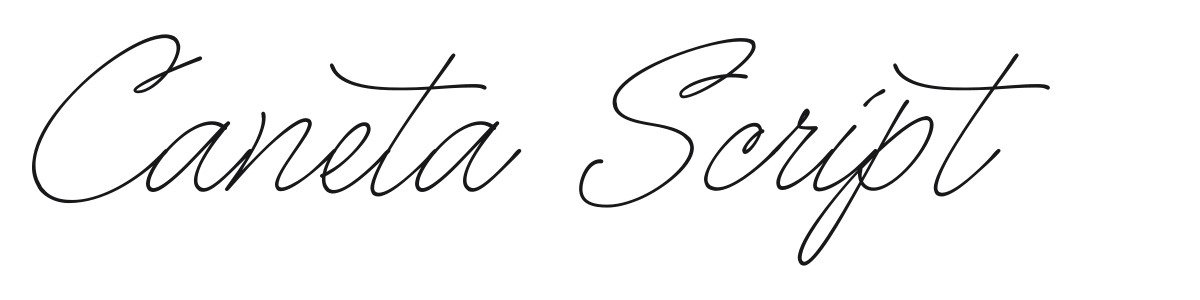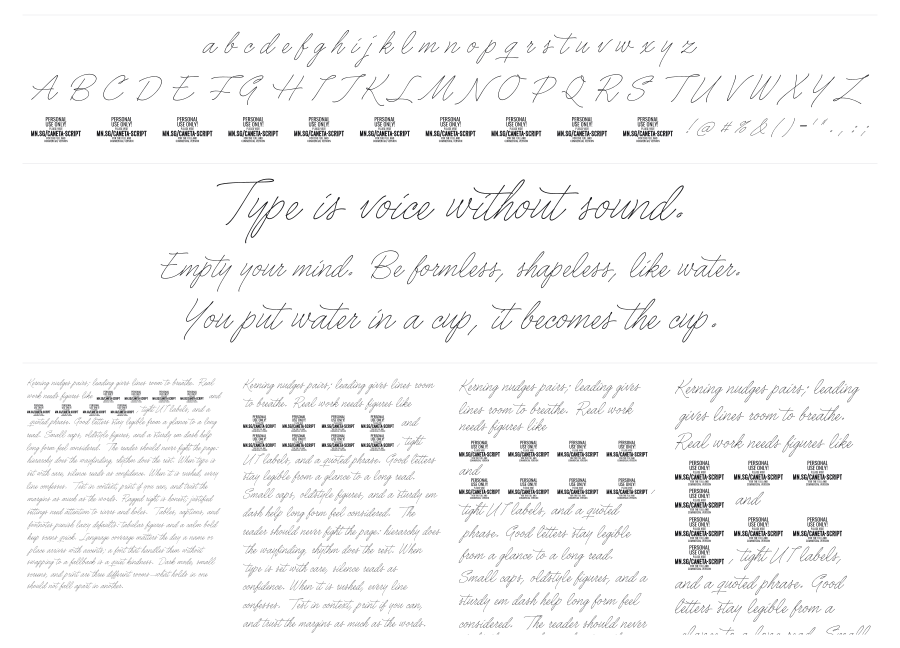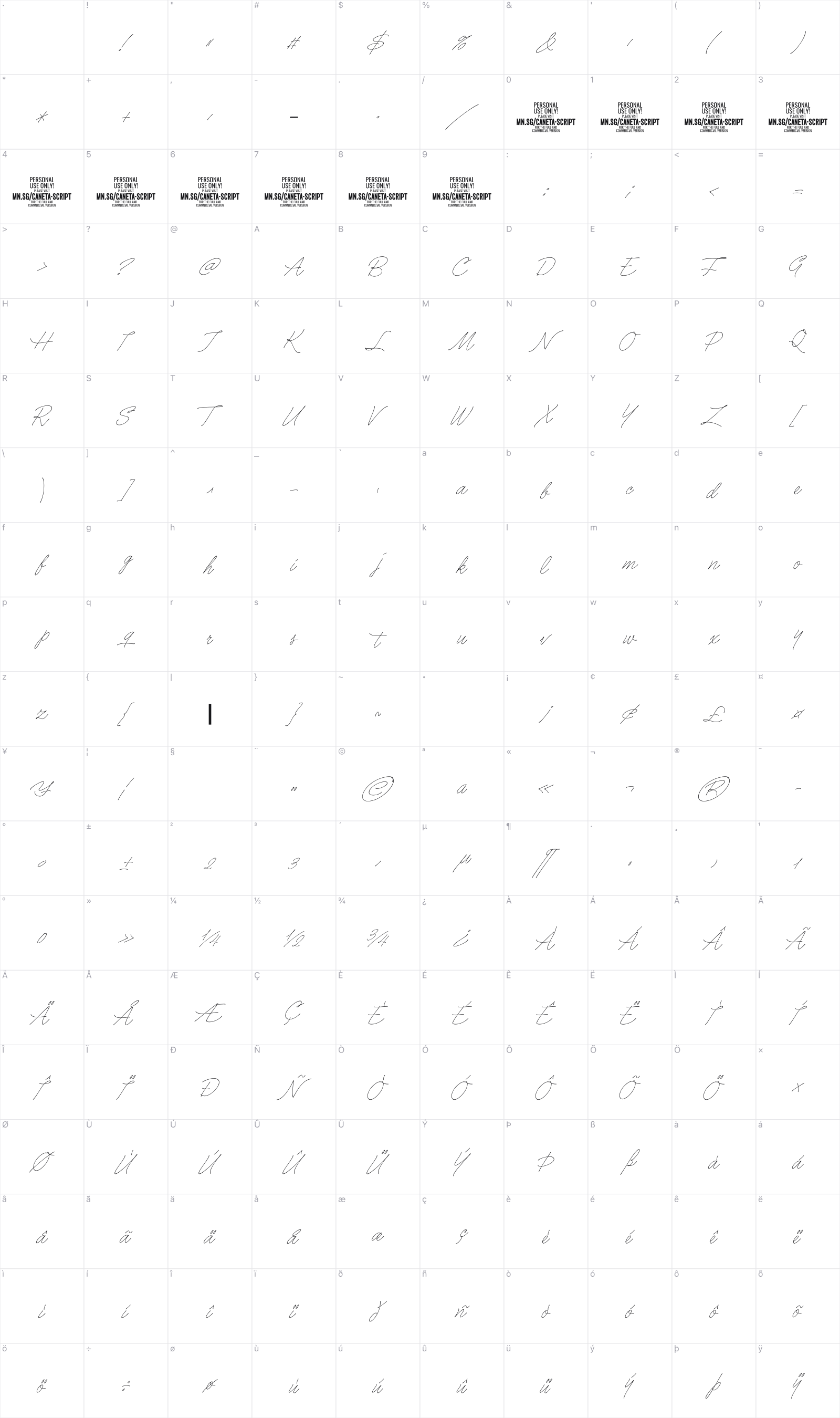
Caneta Script
Caneta Script is a formal calligraphic script inspired by mid-century handwriting, pen correspondence, and vintage advertising lettering. Its ultra-thin strokes and looping connections give it the feel of a carefully inked personal letter, with just enough irregularity to read as genuinely handcrafted. Available in weights from Thin to Black, it covers a wide tonal range while keeping that authentic pen-drawn quality throughout.